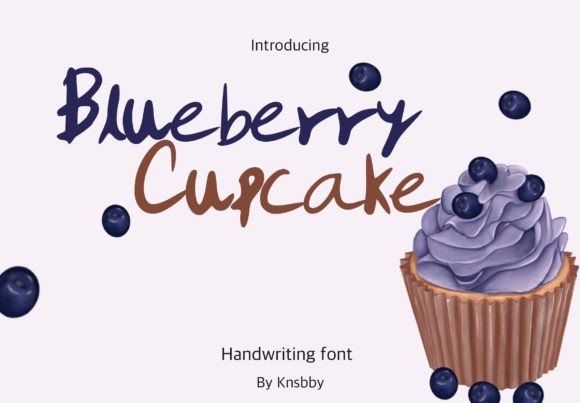
Step into a world of delightful typography with Blueberry Cupcake Font, an exquisite script font that dances across your screen with grace and charm. Immerse yourself in the beauty of handwritten artistry, meticulously crafted to bring your creative visions to life.
Carefully designed by the talented KisbyArt, Blueberry Cupcake Font exudes a warm and inviting personality that will captivate your audience. Its gentle curves and delicate flourishes evoke a sense of nostalgia and elegance, making it the perfect choice for personal branding, wedding stationery, and any project that calls for a touch of heartwarming charm.
With Blueberry Cupcake Font, you'll discover a font that effortlessly adds a touch of whimsy and playfulness to your designs. Let your words dance across the page, captivating readers with its enchanting appeal. Its versatility extends to a wide range of applications, including logos, social media graphics, and marketing materials.
But what truly sets Blueberry Cupcake Font apart is its ability to elevate your creativity and inspire you to think outside the box. Whether you're a seasoned designer or just starting out, this font has the power to transform your ideas into stunning visual masterpieces.
So embark on a typographic journey with Blueberry Cupcake Font, and let your imagination soar. Embrace the beauty of handwritten elegance and create designs that leave a lasting impression. Unleash your creativity and experience the joy of working with a font that truly speaks to your heart.